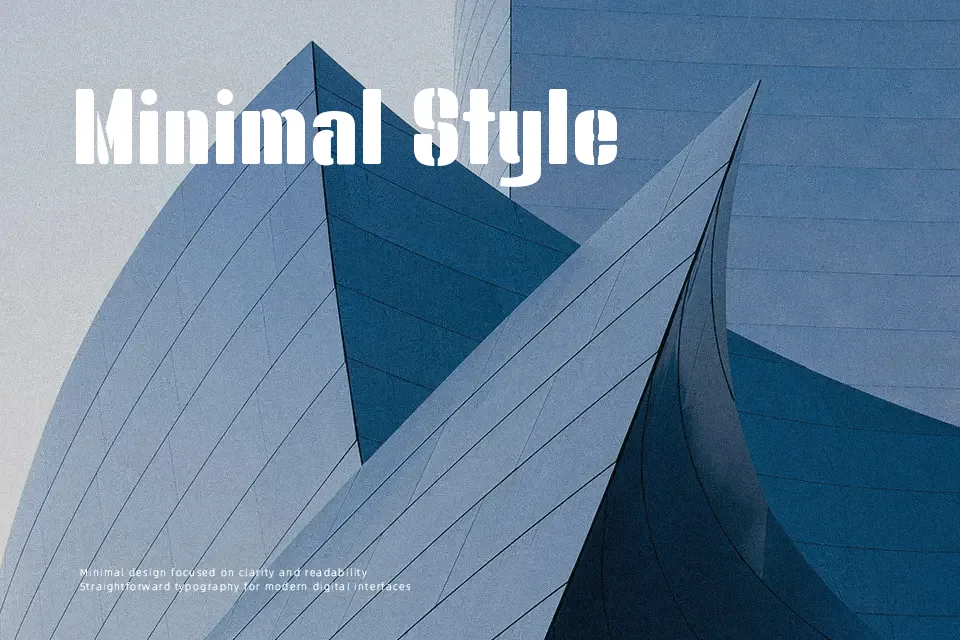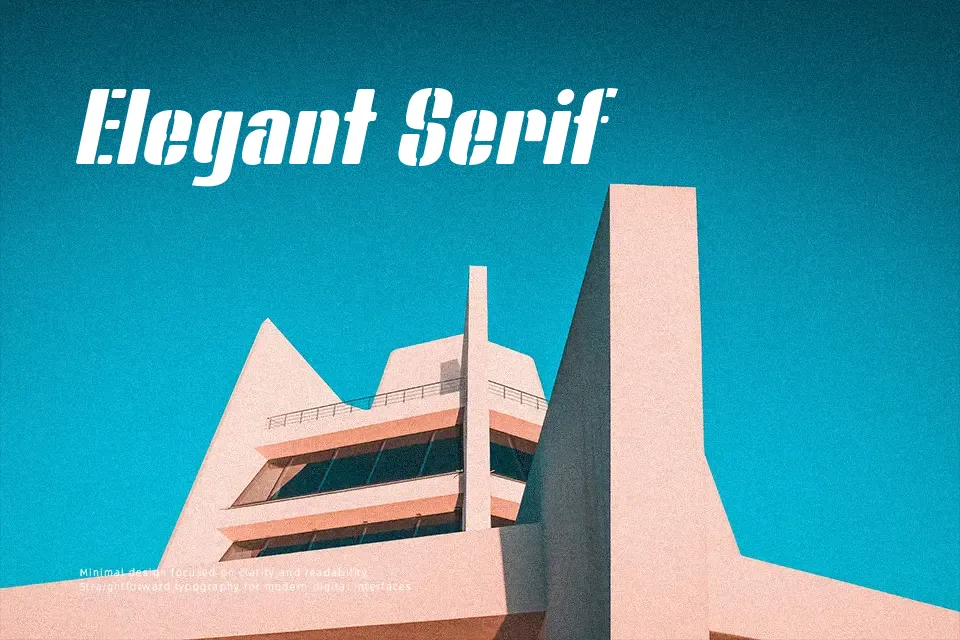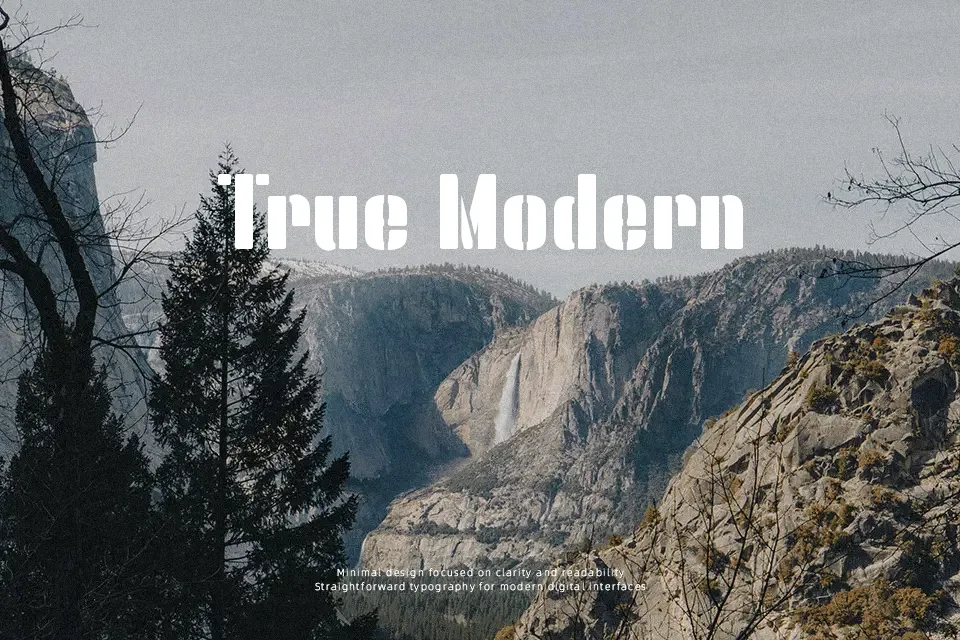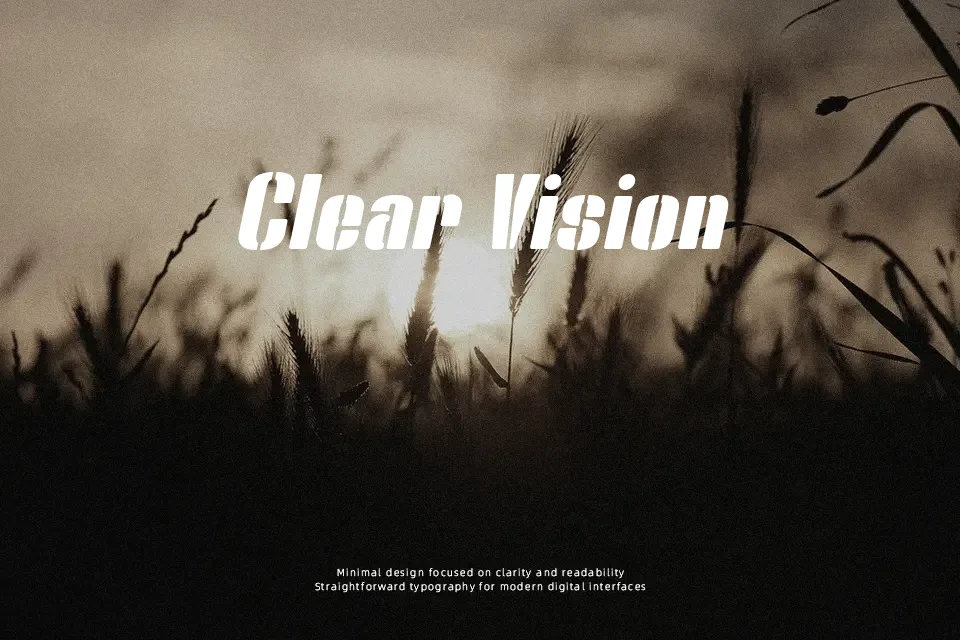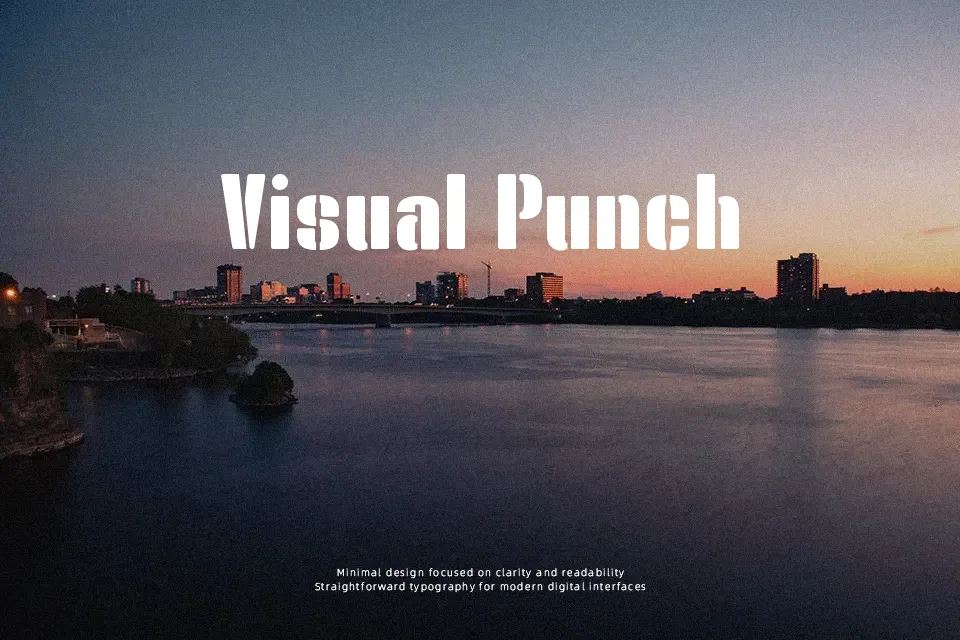
Bluefish Stencil Font
Designed by Studio Typo
Bluefish Stencil by Studio Typo is a heavy, condensed typeface defined by its commanding, utilitarian presence. The design features thick, robust letterforms interrupted by crisp cut-out gaps, retaining readability even from a distance. Its overall aesthetic feels direct and straightforward, reminiscent of military signage or industrial cargo stamping. This font excels in large-scale applications like bold event posters, eye-catching magazine headlines, and rugged athletic branding projects where a strong visual impact is necessary. Conversely, its condensed and interrupted structure makes it unsuitable for long paragraphs or small body text, as the stencil gaps can easily hinder reading flow. Compared to traditional stencil fonts, Bluefish Stencil provides a more streamlined, contemporary geometry.
– Industrial-themed branding and logos
– Striking large-scale event posters
– Bold magazine and editorial headlines
– Military or cargo-style graphic design
– Lengthy paragraphs or extensive body text
– Small-scale digital user interfaces
– Elegant or formal wedding invitations
Perfect for branding, headline, and logo, with a bold and condensed style.